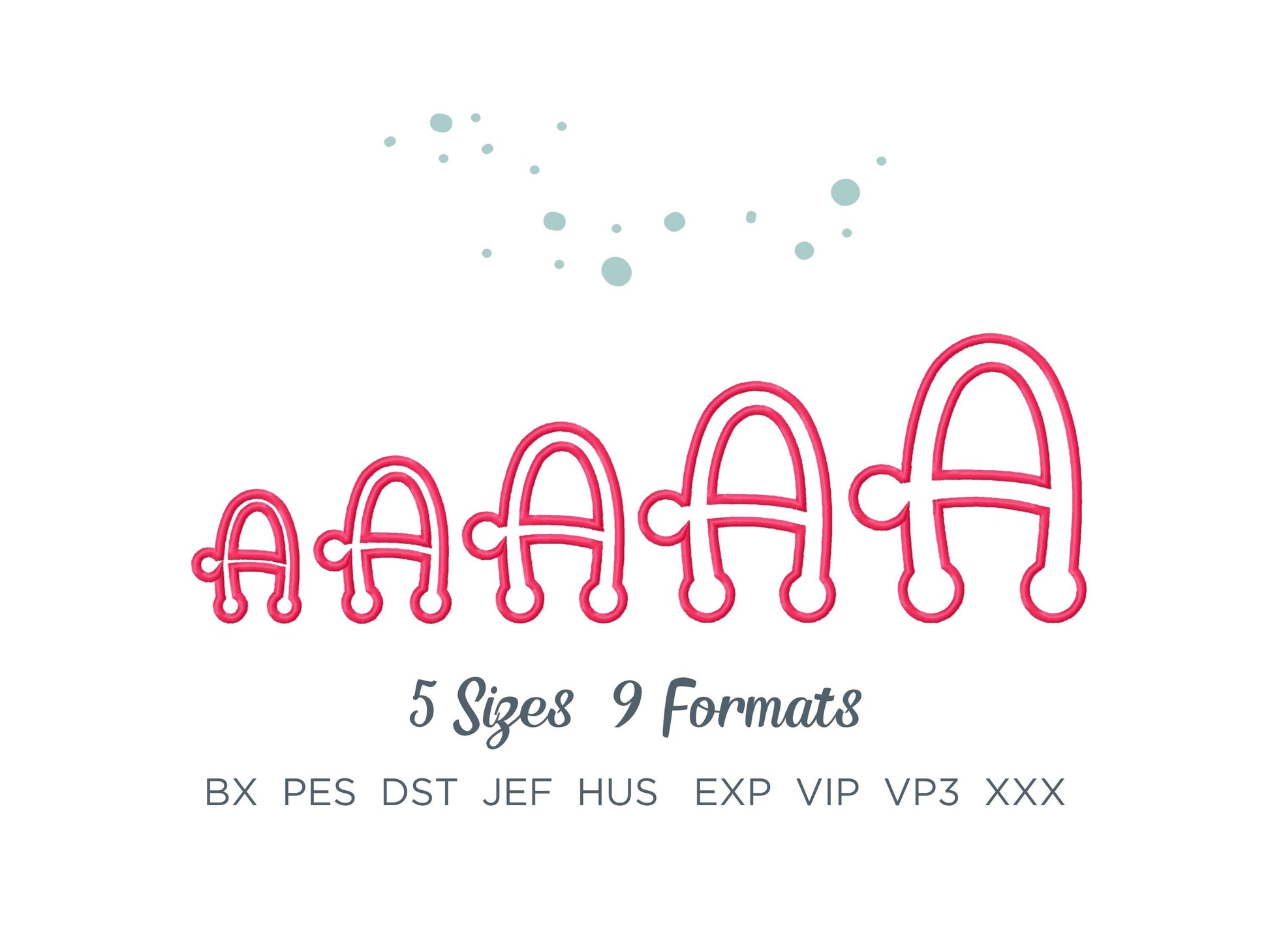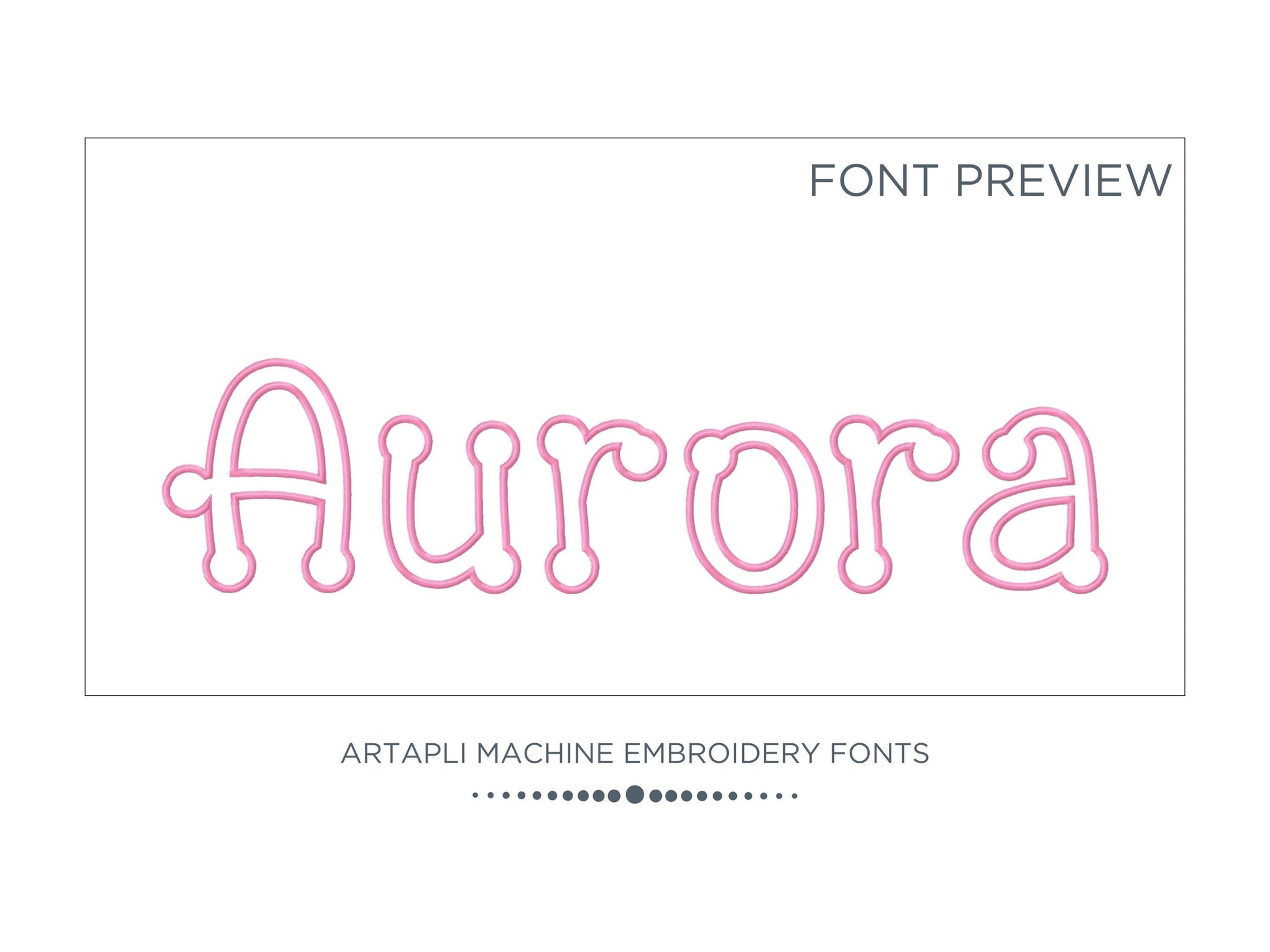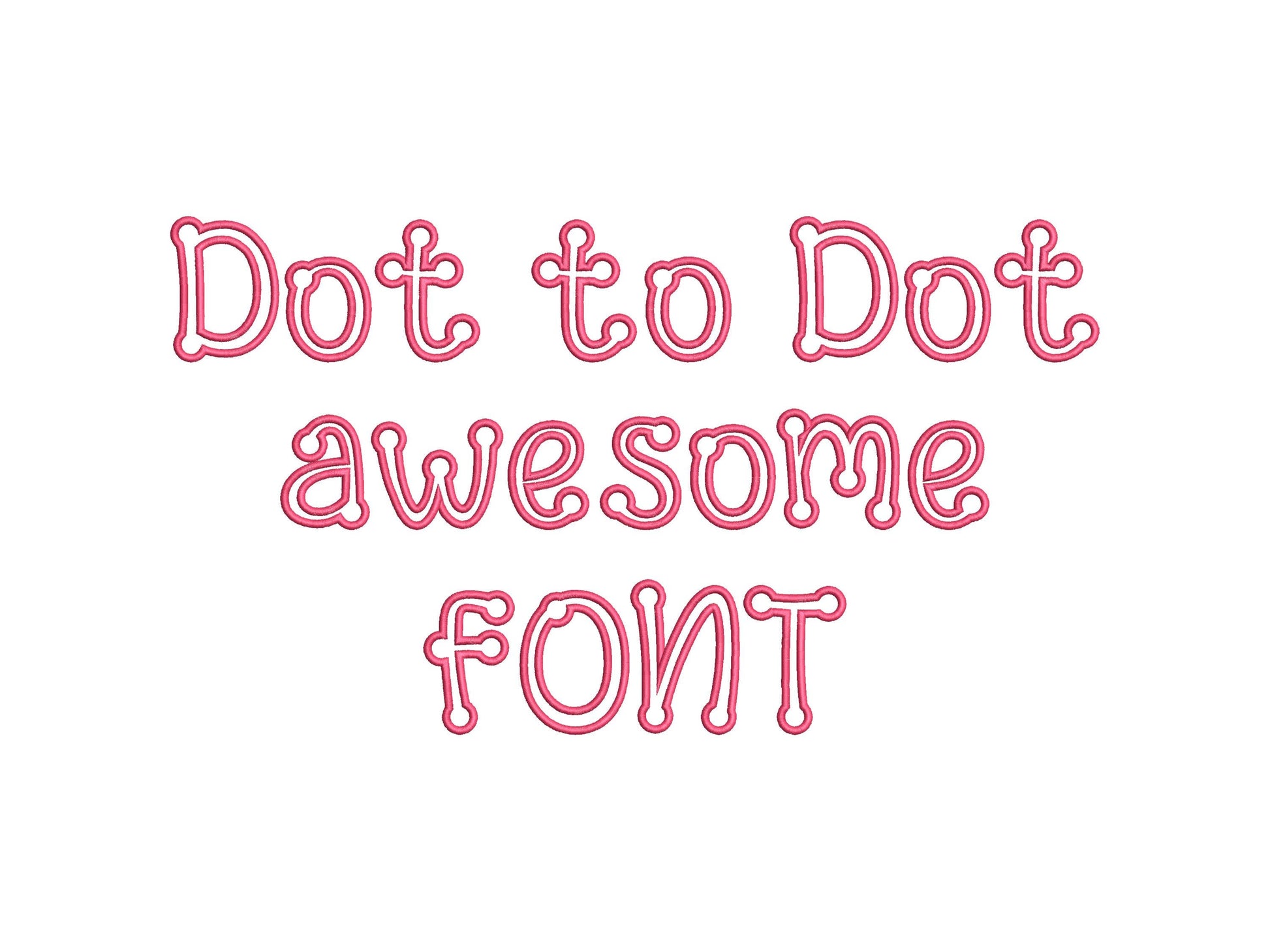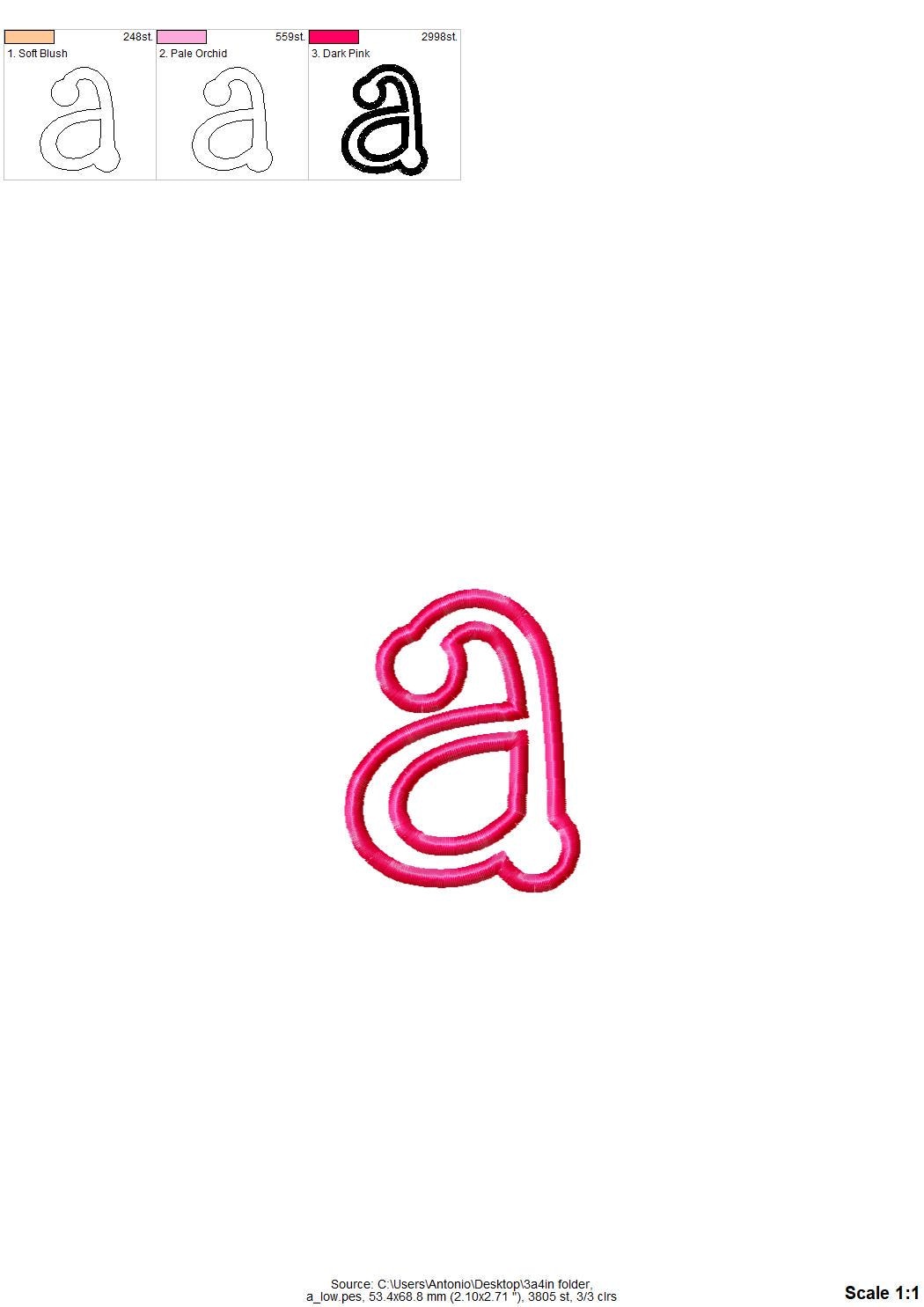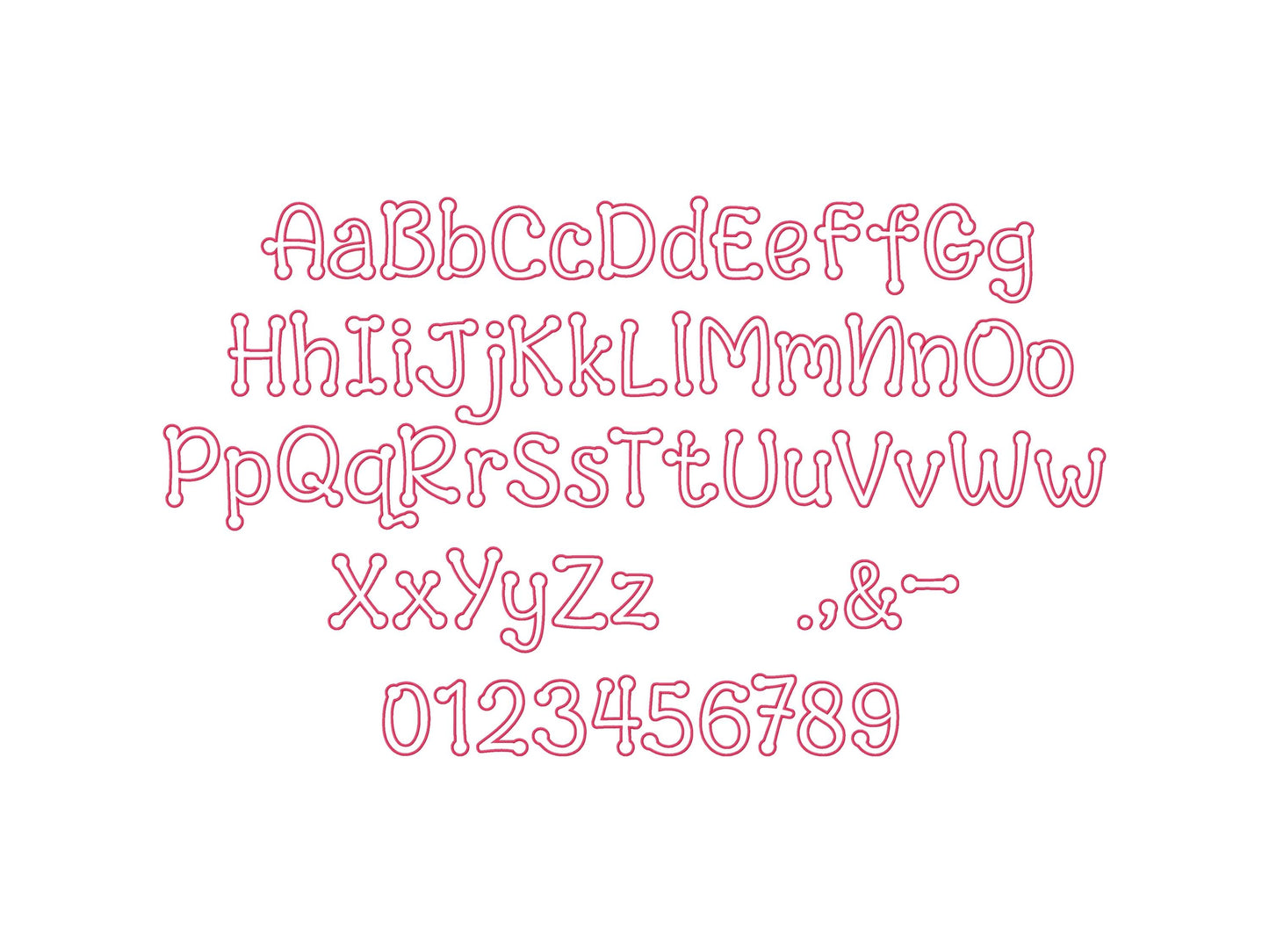
Dot to Dot Kids Font Applique
Or click to open the linkA fun dot-to-dot applique font for kids' names, school shirts, backpacks and play clothes.
Uppercase and lowercase letters, numbers 0 to 9 and punctuation, in five sizes: 2.3, 2.8, 3.4, 4 and 5 inches. Applique letters with a playful dotted look.
- Dot-to-dot kids applique font
- Uppercase and lowercase letters, numbers 0-9, punctuation